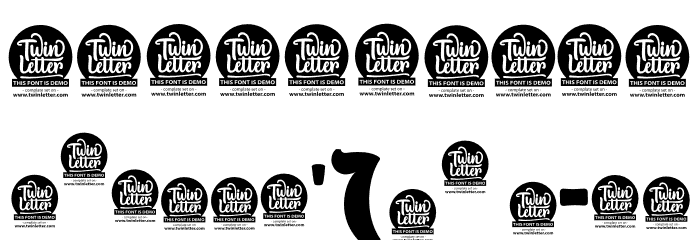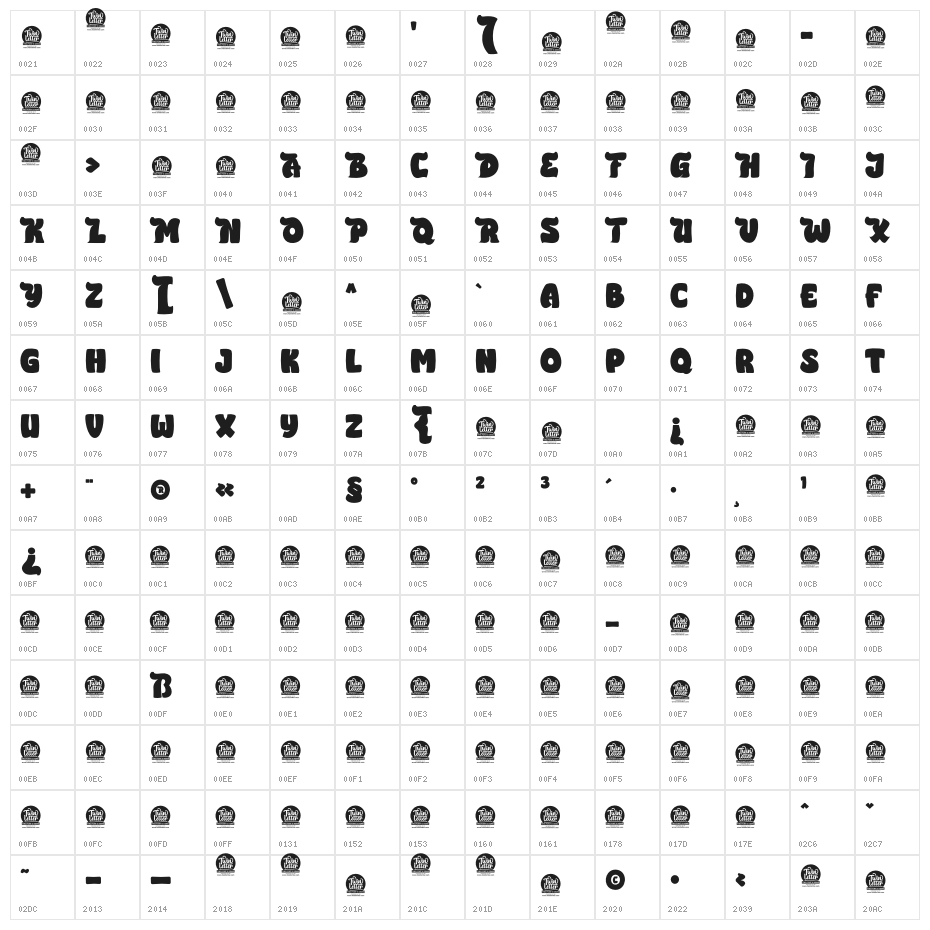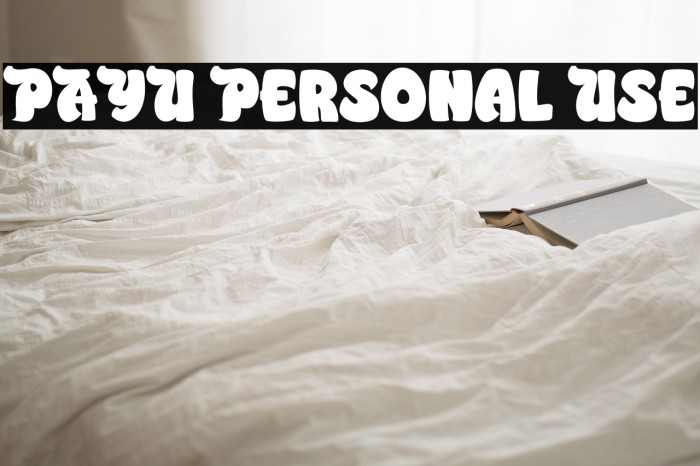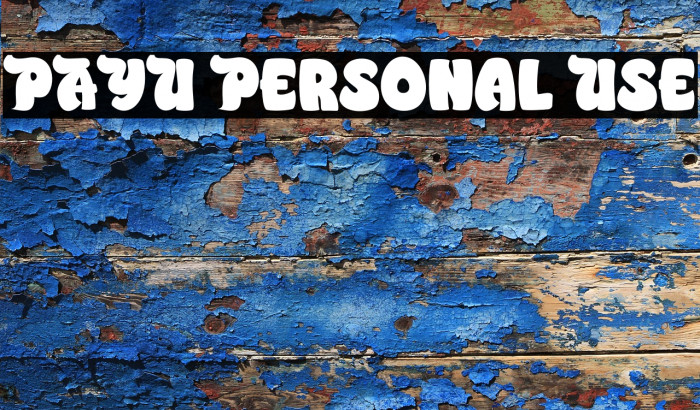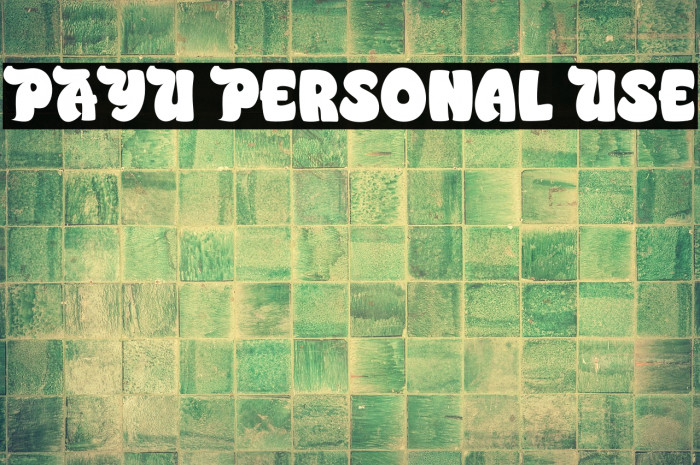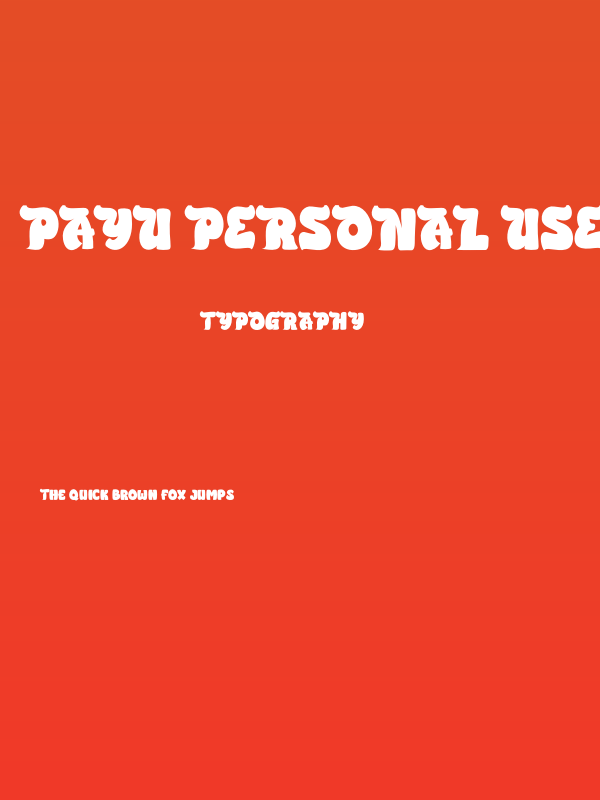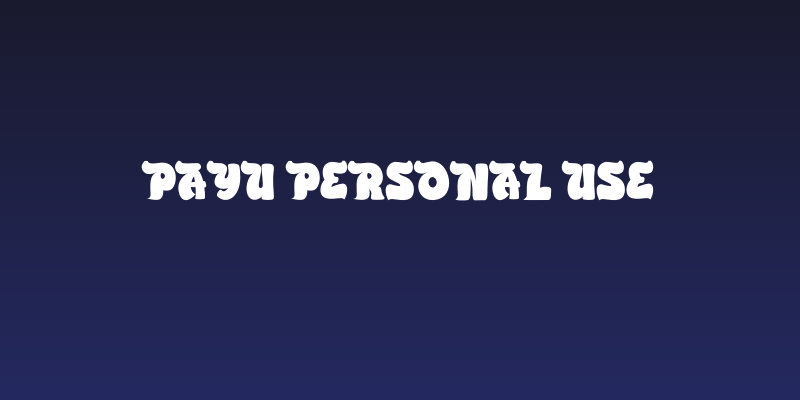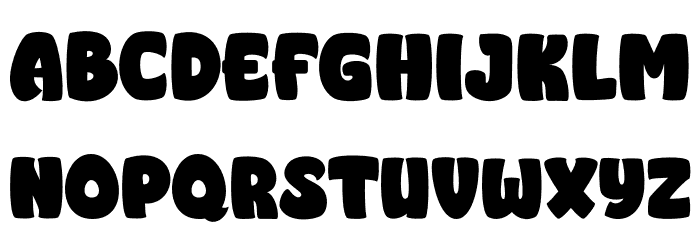
PAYU Personal Use Font
PAYU Personal Use Description
This font features a bold and playful design with thick, rounded strokes that give it a whimsical and friendly appearance. The characters are heavily stylized, with exaggerated curves and a slightly irregular shape that adds a unique charm. The uppercase letters are particularly eye-catching, with a strong presence that makes them ideal for attention-grabbing headlines or logos. The lowercase letters maintain the same playful style, ensuring consistency across different text applications. The numbers and special characters are equally bold and maintain the overall aesthetic, making this font versatile for various creative projects.
| Overall Style | Playful, Whimsical, Bold |
| Proposed Projects | Ideal for children's books, playful branding, posters, and creative advertising. |